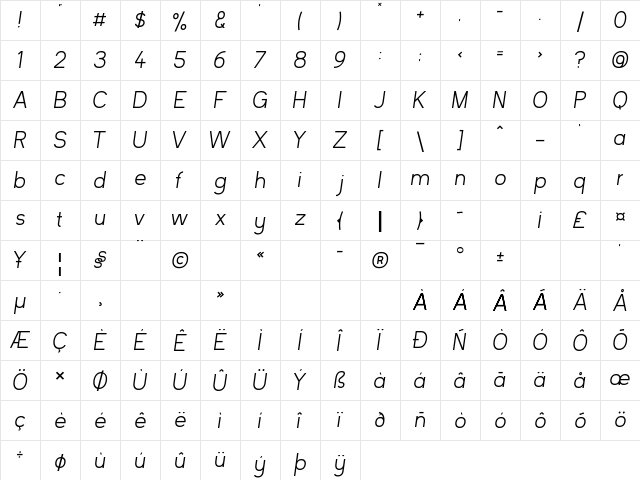
Kayak Sans Light Italic Free Font
Kayak Sans Light Italic
Designer: Jack Harvatt
Complete Kayak Sans Light Italic glyph index. Displaying only characters natively supported by Kayak Sans Light Italic font.
Design Context for Kayak Sans
Kayak Sans is a composed and adaptable typeface that performs quietly and consistently across a wide range of design contexts. The slanted form adds forward momentum and visual energy. Its slender proportions lend an understated elegance to any composition.